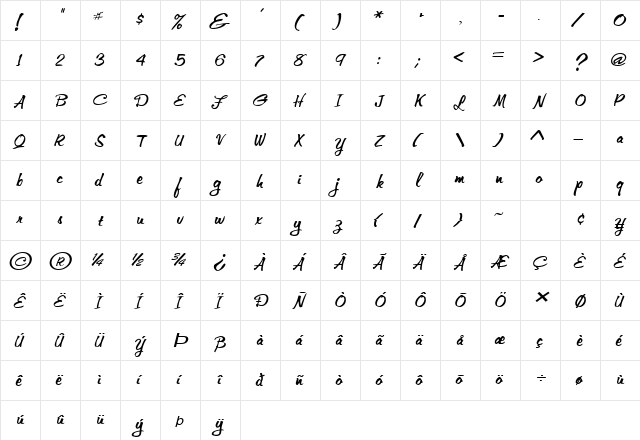
Memo-Extended Italic
Design Context for Memo-Extended Typeface
Memo-Extended is a composed and adaptable typeface that performs quietly and consistently across a wide range of design contexts. The dynamic lean of this cut emphasises speed and emphasis in any layout.
Pro Tip: Try Memo-Extended for annotation and caption copy alongside an upright companion — the contrast in angle creates a dynamic but ordered typographic system.